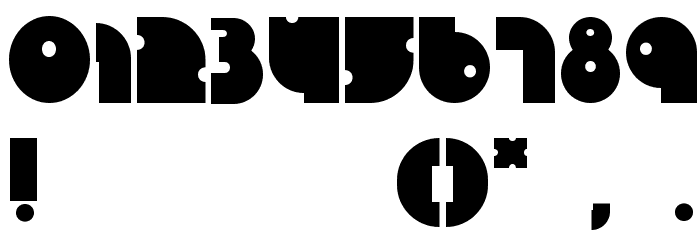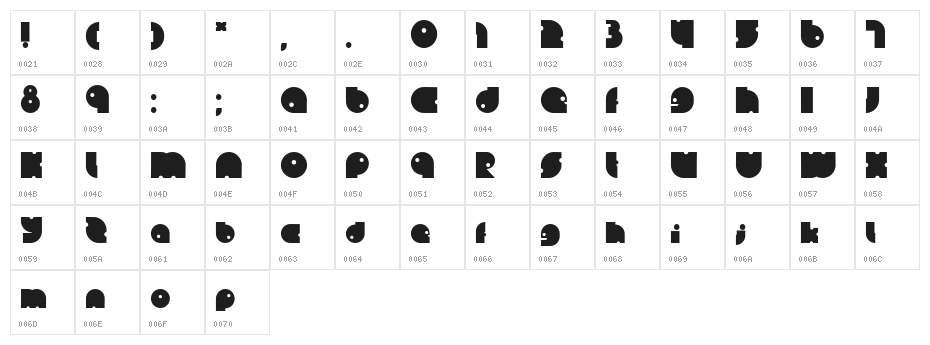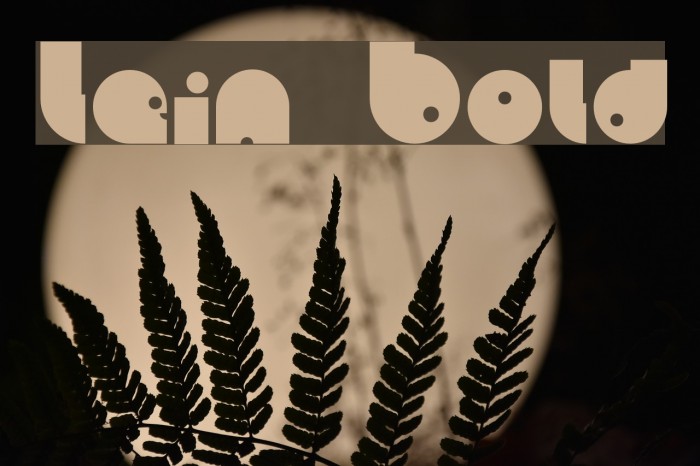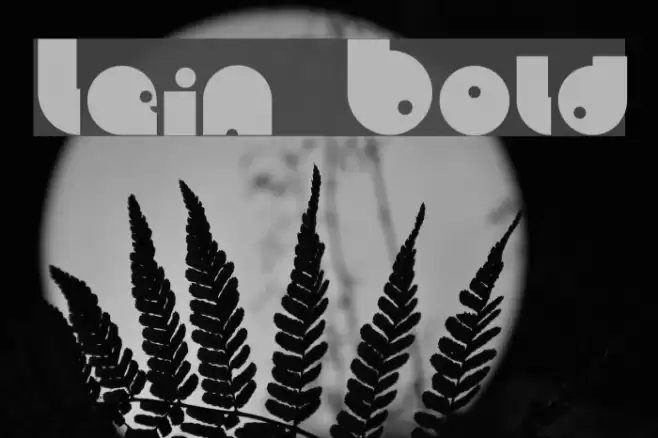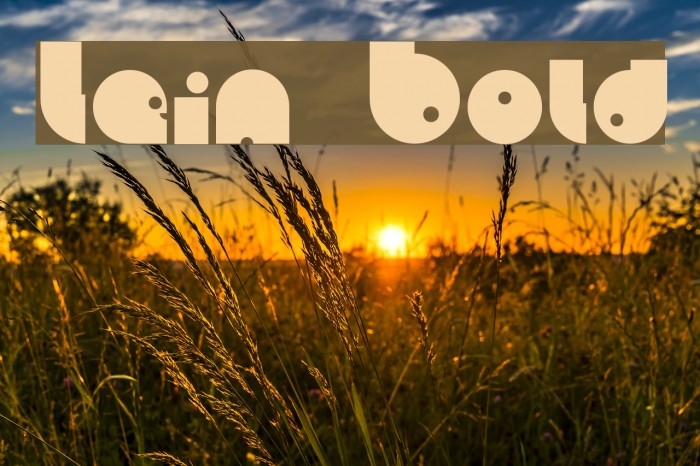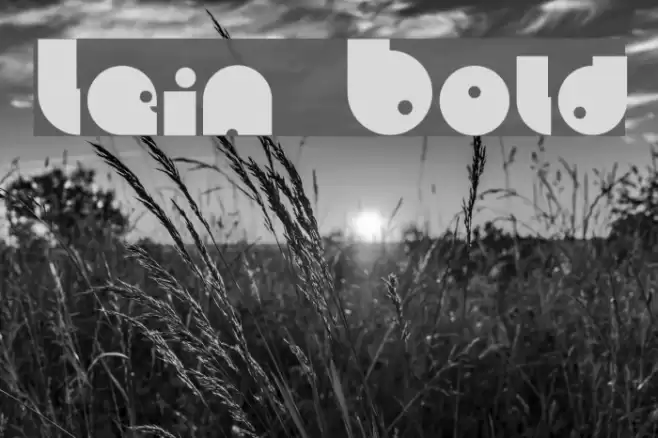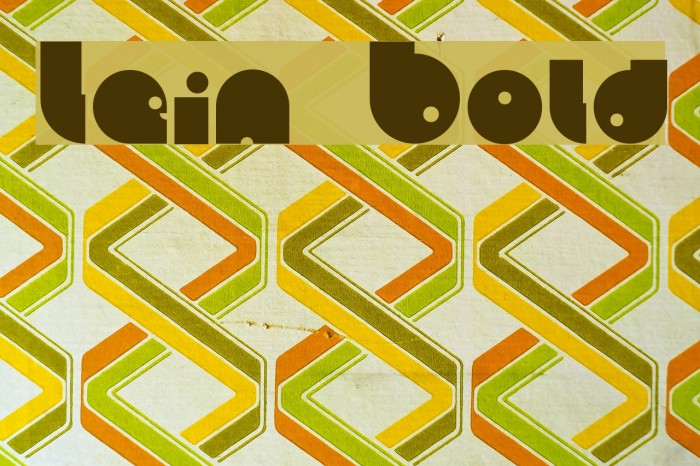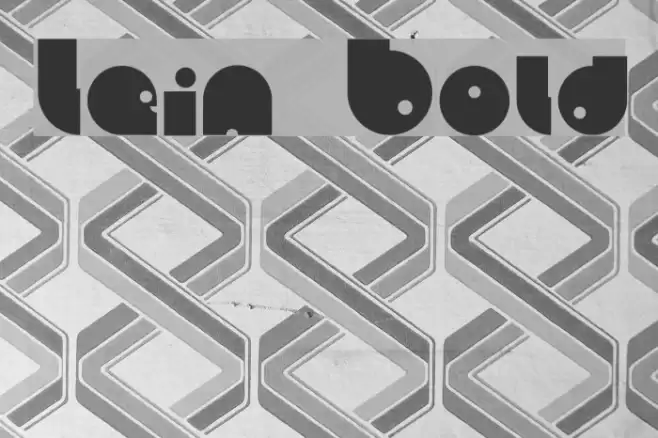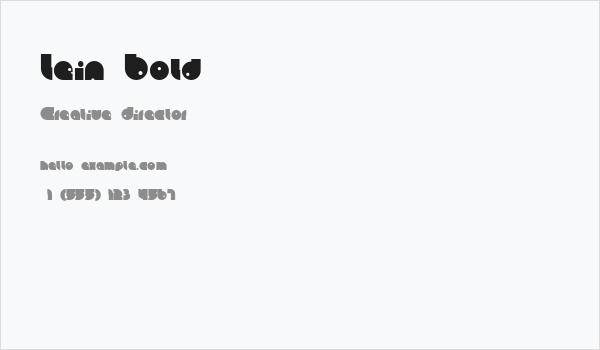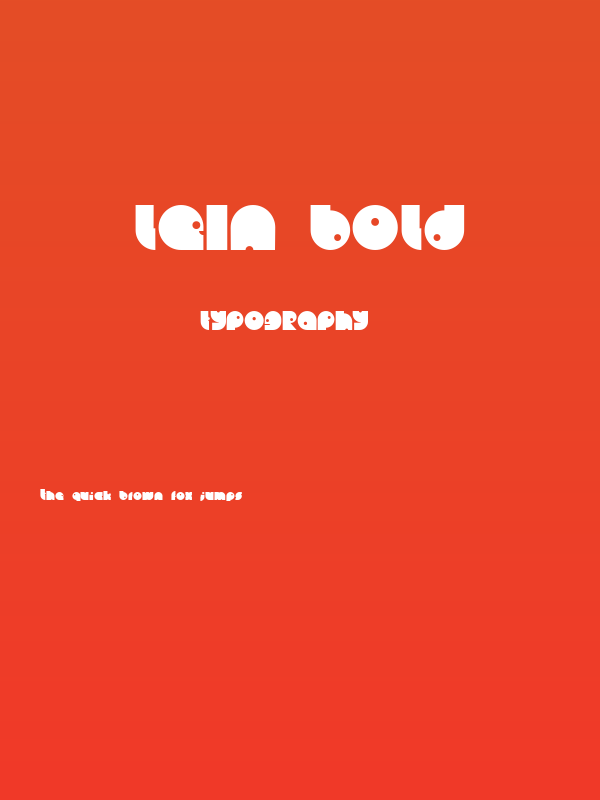
Lein Bold Font
Lein Bold Description
This font features a bold and geometric style with a unique, playful character. Each letter is constructed with thick, solid strokes and rounded edges, creating a sense of fullness and weight. The design incorporates circular cutouts within the letters, adding a distinctive and modern touch. The overall appearance is both striking and approachable, making it suitable for creative and contemporary projects. The font maintains a consistent weight throughout, ensuring readability while still offering a decorative flair.
| Proposed Projects | Ideal for branding, posters, and modern graphic design projects that require a bold statement. |